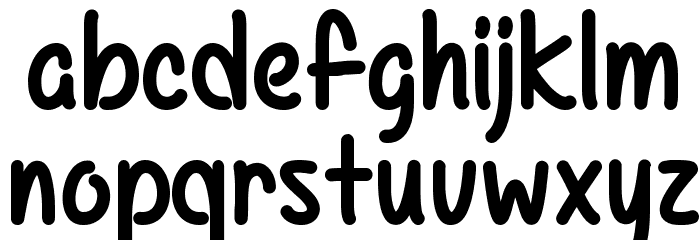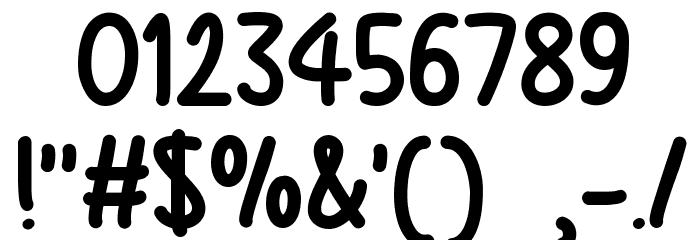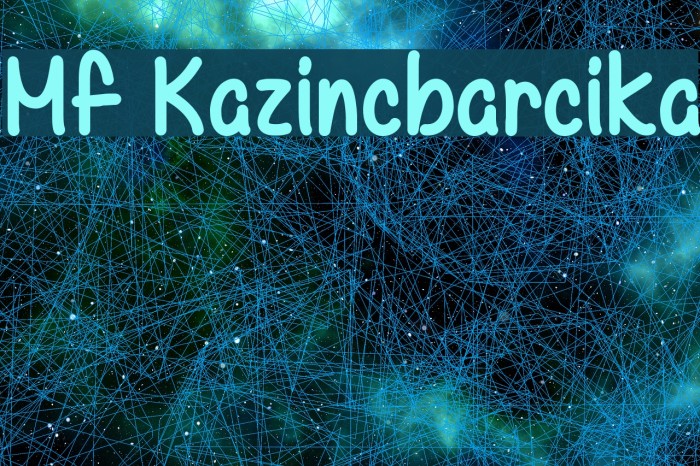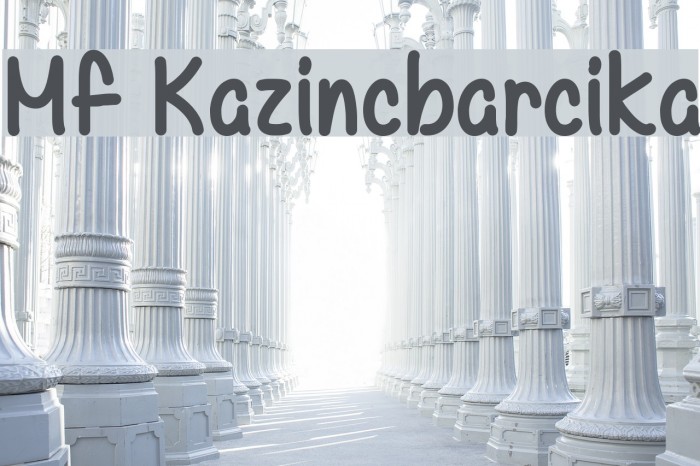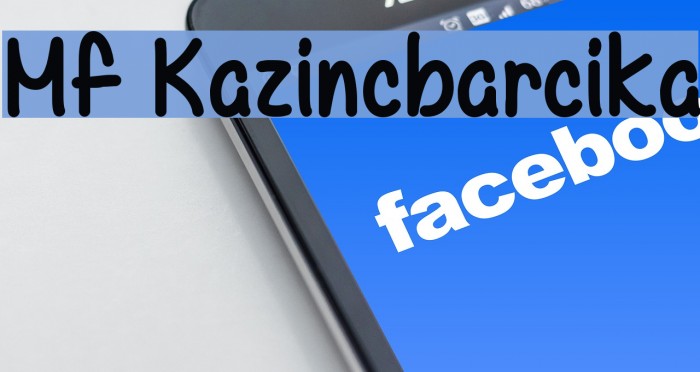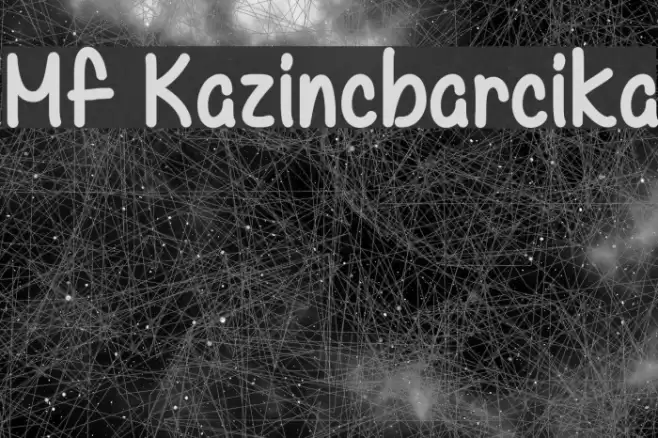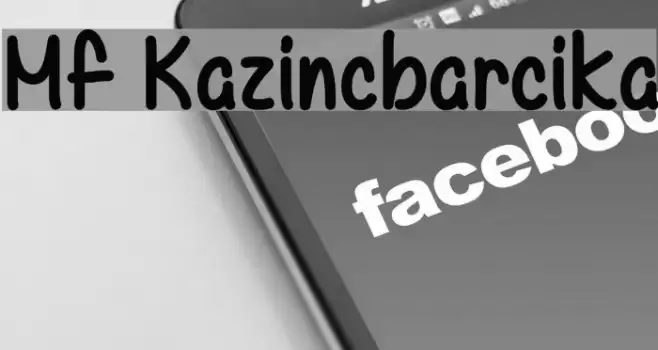
Mf Kazincbarcika Font
This playful and bold font features rounded edges and a handwritten style, giving it a friendly and approachable appearance. The characters are slightly condensed, with a consistent stroke width that maintains readability while adding a touch of whimsy. The uppercase letters are bold and prominent, while the lowercase letters maintain a casual, flowing style. Numbers and special characters are designed to match the overall playful aesthetic, making this font suitable for creative and informal projects.
A playful, bold, and handwritten-style font with rounded edges.
- Proposed Projects: Ideal for children's books, playful branding, greeting cards, and informal event invitations.
- Overall Style: Playful
- Use Case: Headlines, Logos, Informal Text